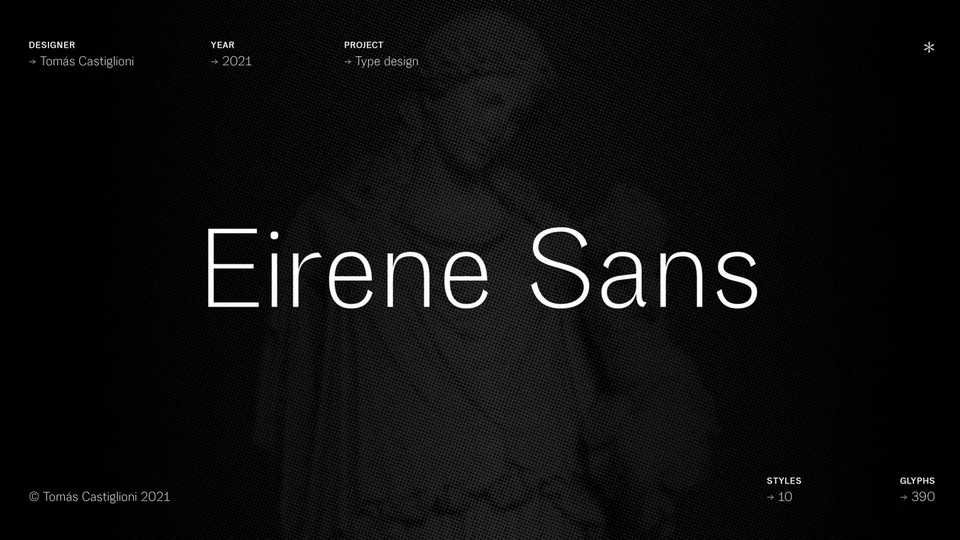
Download Eirene Sans typeface, a sans serif font family inspired by humanist typefaces with some grotesque characteristics. Simple, modern and functional are the principle features of Eirene Sans type family; the uppercase glyphs present a sophisticated personality.
Designer: Tomás Castiglioni